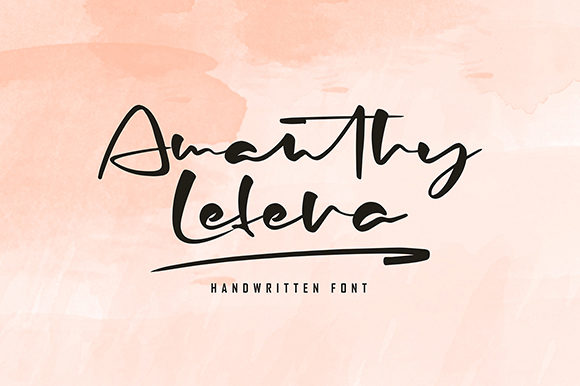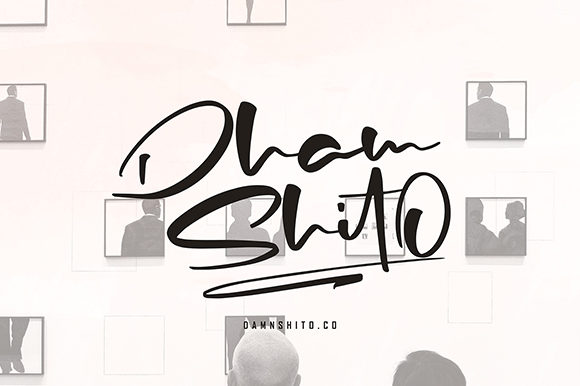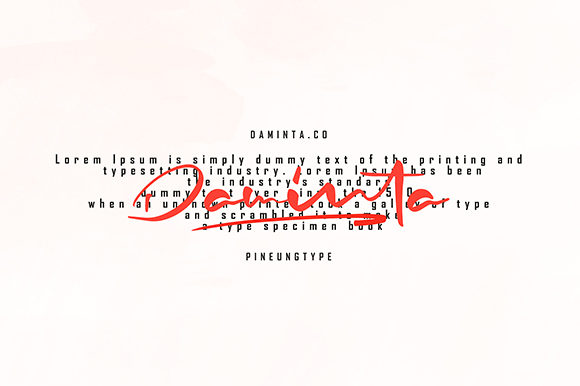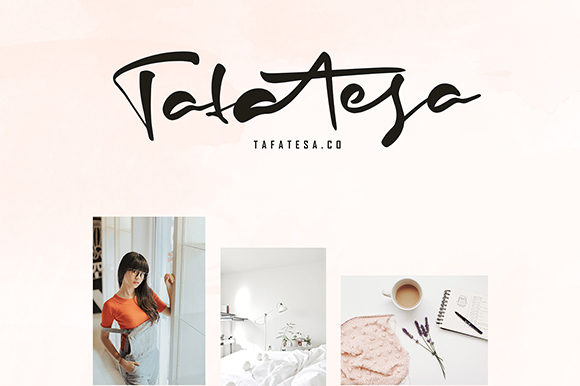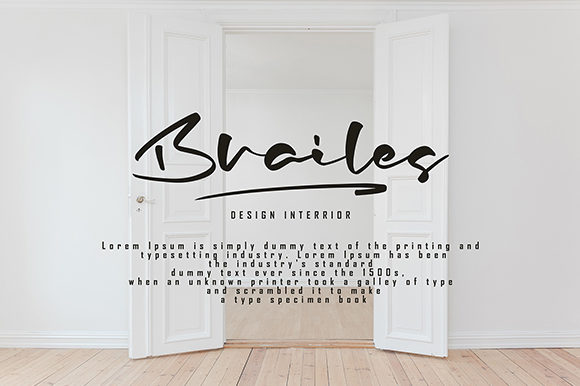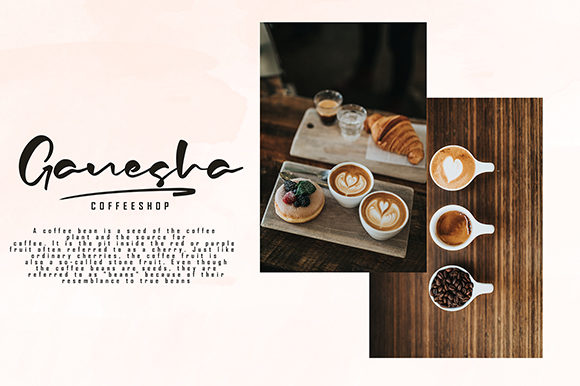
Amanthy Lefera Font
About Amanthy Lefera Font
Amanthy Lefera is a stunning and light handwritten font with incredible swashes. Fall in love with its beautiful and effortlessly striking feel.